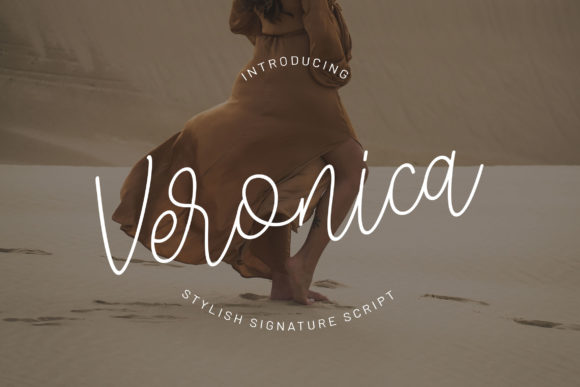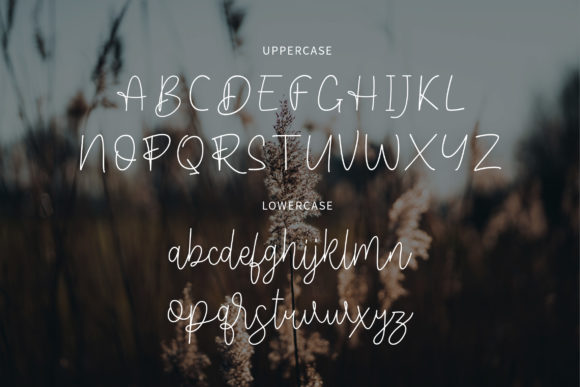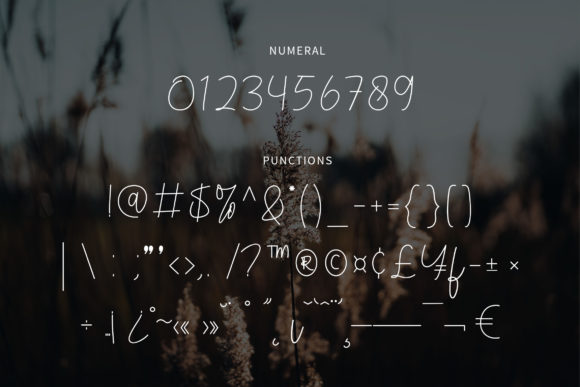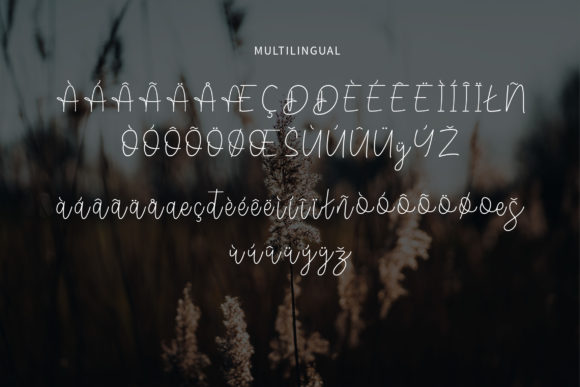
Veronica
About Veronica Font
Veronica is a bouncy and timeless script font carefully created with a touch of elegance. This is a beautiful combination of timeless elegance and authentic calligraphy. It features an incredibly classic style, while still keeping a friendly feel. Fall in love with its authentic feel and use it to create gorgeous wedding invitations, beautiful stationary art, eye-catching social media posts, and cute greeting cards.